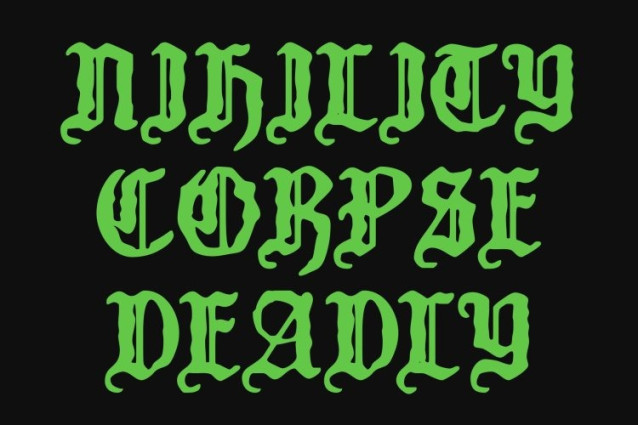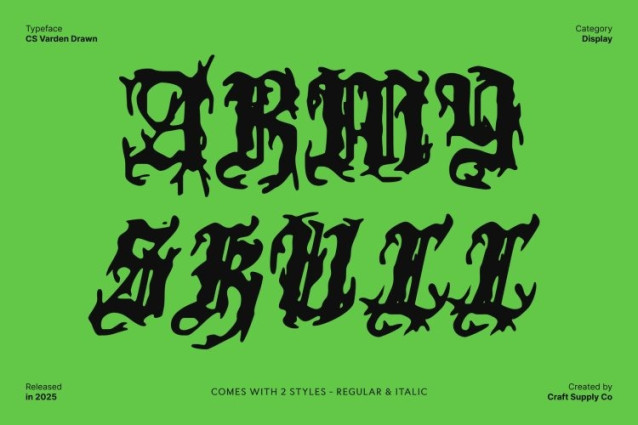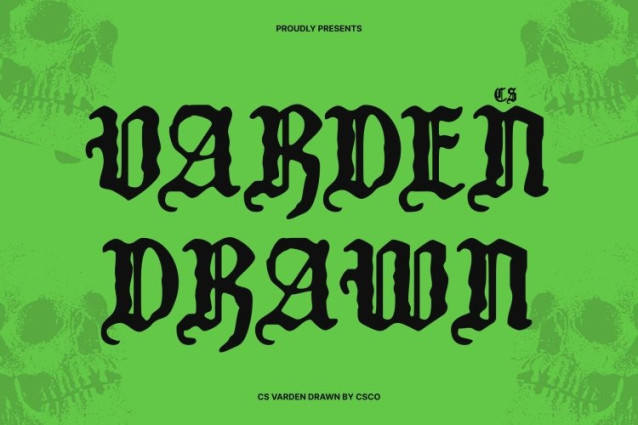
CS Varden Drawn Font
CS Varden Drawn Font – This is a dark and dramatic blackletter display font built on sharp, angular strokes and brutal structural forms. Inspired by classic Old English typography, its letterforms carry a strong medieval presence that feels authoritative, bold, and unapologetic. The rigid geometry and pointed details create a powerful visual rhythm, instantly evoking heritage, tradition, and historical depth.
Ornamental Beauty Rooted in Gothic Tradition
Beyond its raw strength, also showcases ornamental beauty typical of traditional blackletter design. Decorative details enrich each character, adding sophistication and visual intrigue. These classic embellishments balance the harsh angles, giving the font an elegant yet intimidating presence. The result is a typeface that feels both brutal and refined, perfectly suited for designs that celebrate tradition with a dramatic edge.
Hand-Drawn Texture for Artistic Expression
The drawn effect introduces a handmade, artistic texture that softens the rigid blackletter structure. Subtle imperfections and organic stroke variations bring warmth, personality, and expressiveness to the font. This handcrafted quality prevents the typography from feeling overly rigid, instead making it feel alive, mysterious, and emotionally charged.
Perfect for Heritage Branding and Dramatic Displays
This font excels in posters, beer labels, book titles, branding, and creative projects that require a bold, heritage-inspired identity. Whether used for gothic visuals, cultural branding, or dramatic editorial layouts, this font delivers a mysterious, expressive, and unforgettable character.